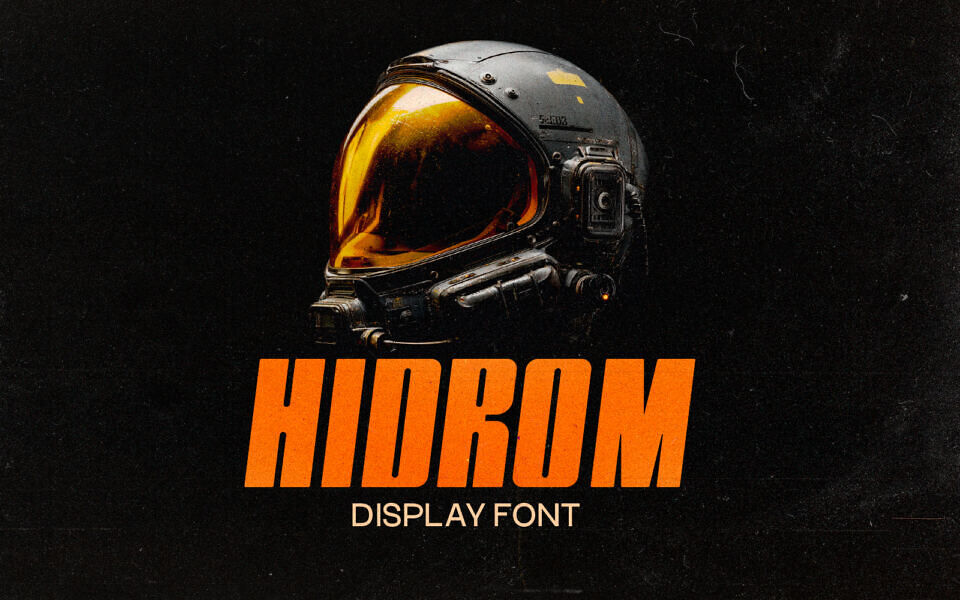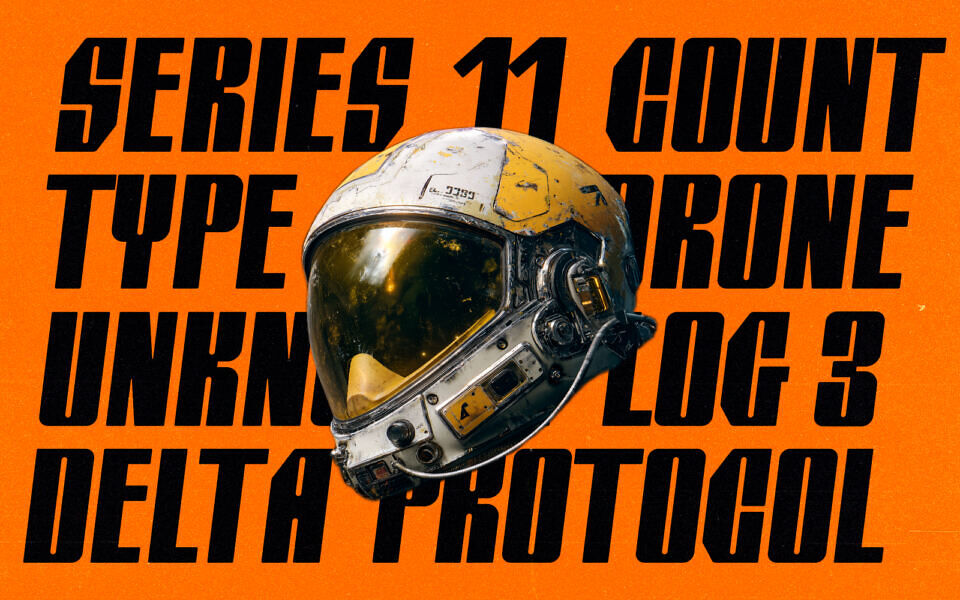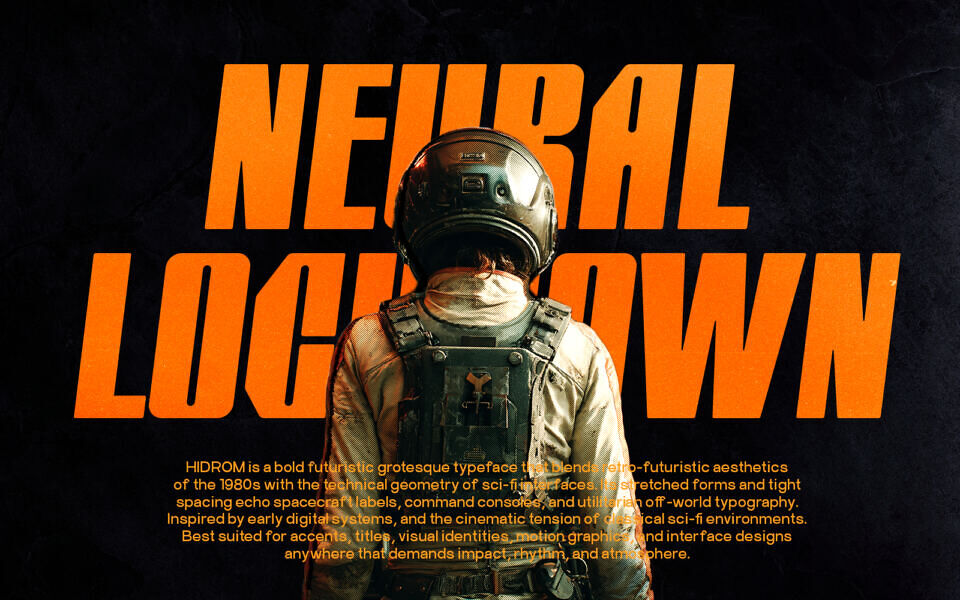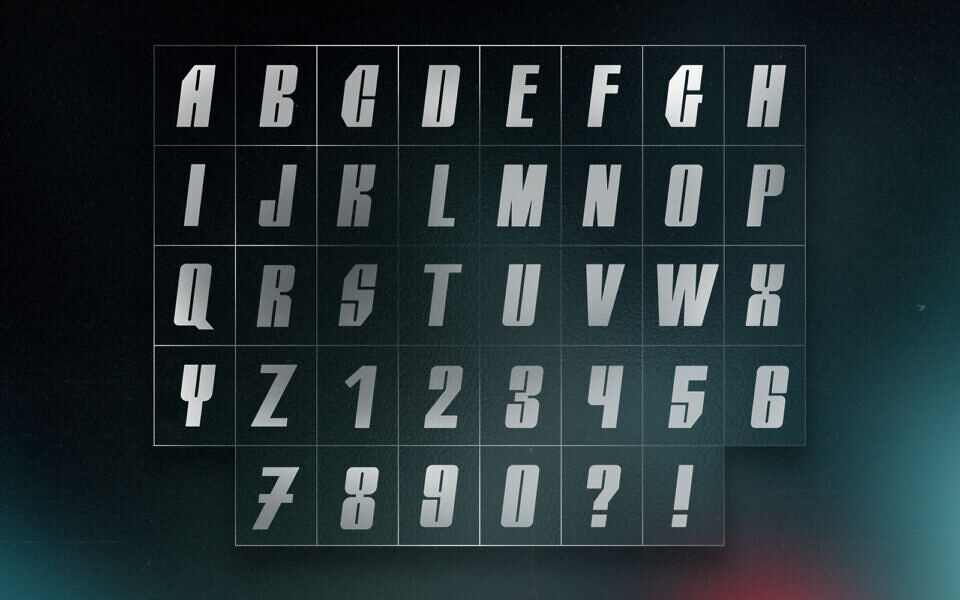
Hidrom Font
HIDROM is a bold futuristic grotesque typeface that blends retro-futuristic aesthetics of the 1980s with the technical geometry of sci-fi typefaces. Its stretched forms and tight spacing echo spacecraft labels, command consoles and utilitarian off-world typography.
Inspired by early digital systems, and the cinematic tension of dystopian sci-fi environments. Best suited anywhere that demands impact, rhythm, graphic atmosphere and interface designs.